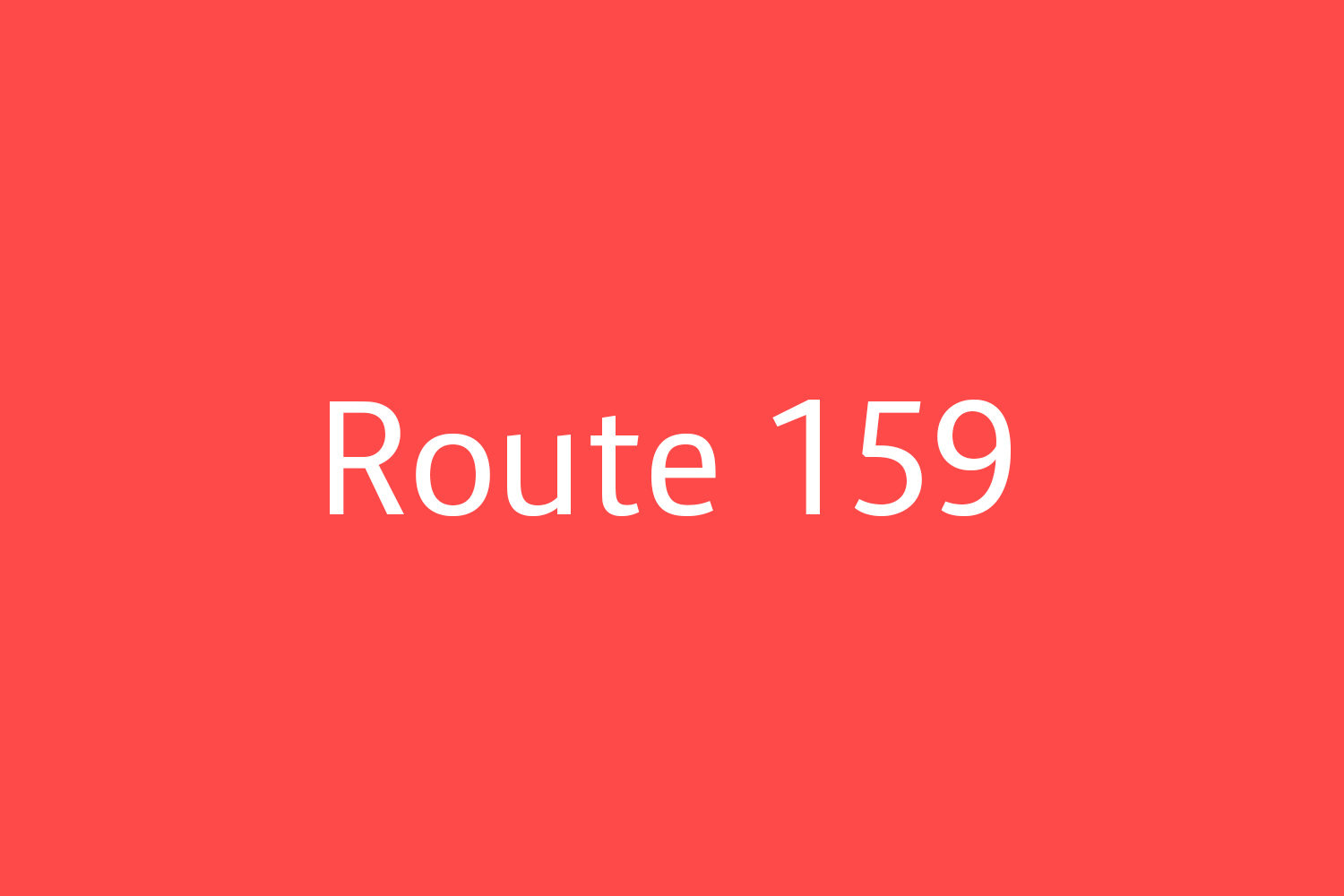
Route 159 Free Font Family is a newly developed sans serif font as a web font for dot colon.
Making the most of the experiences of making Vegur and Aileron previously released, I emphasized more visibility and readability on the screen. It is designed to take wide countertops inside letters, including lowercase b, d, p, q, making it even harder to collapse even in small size.